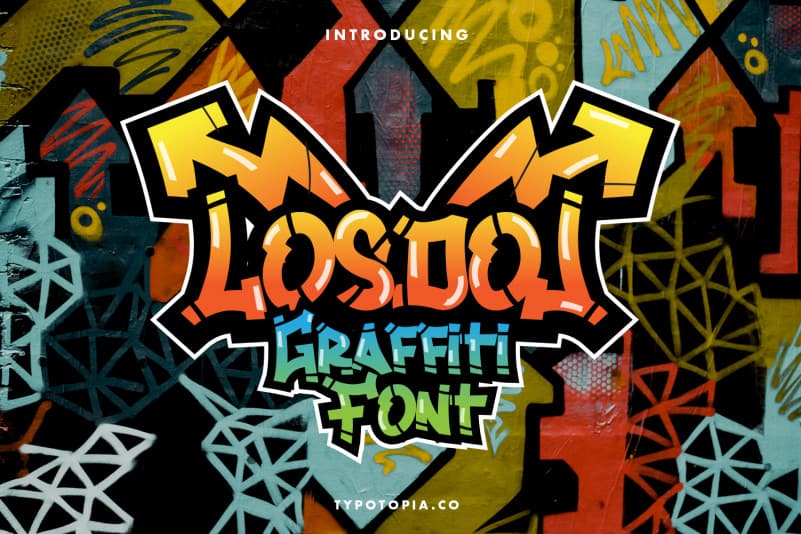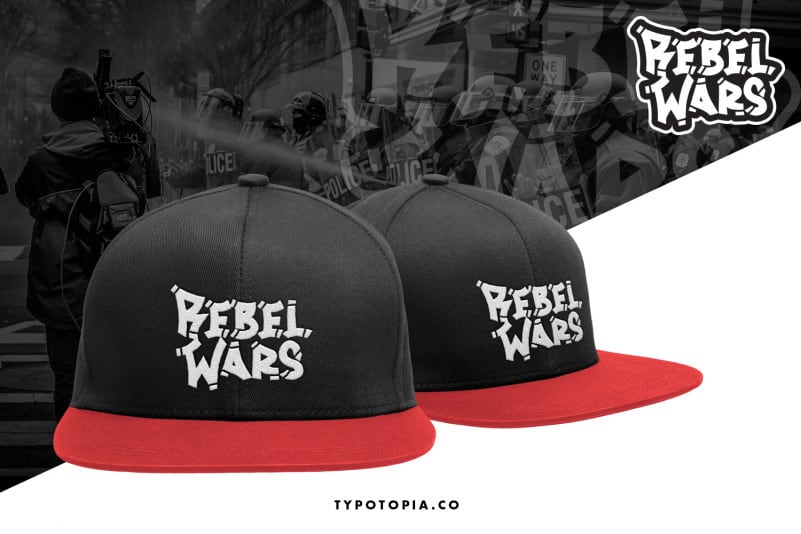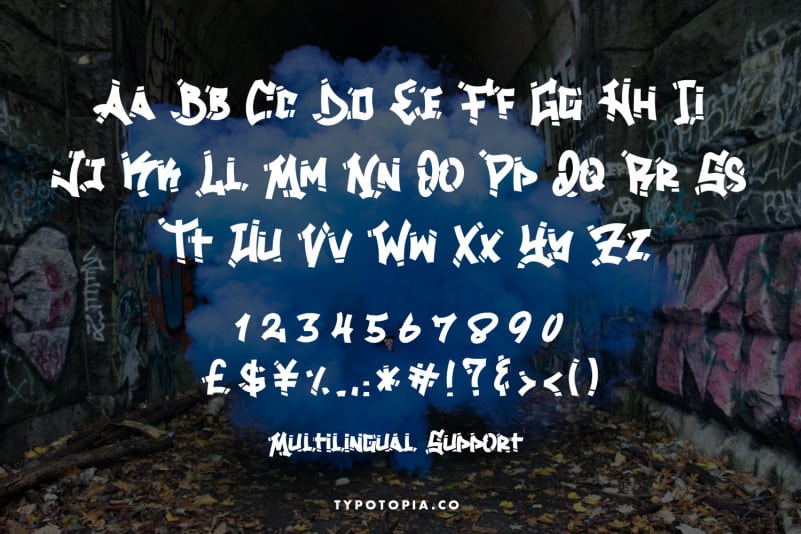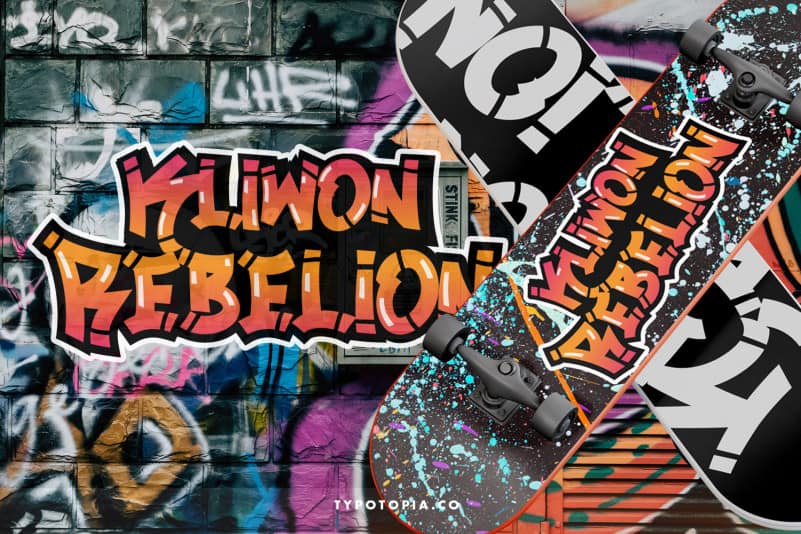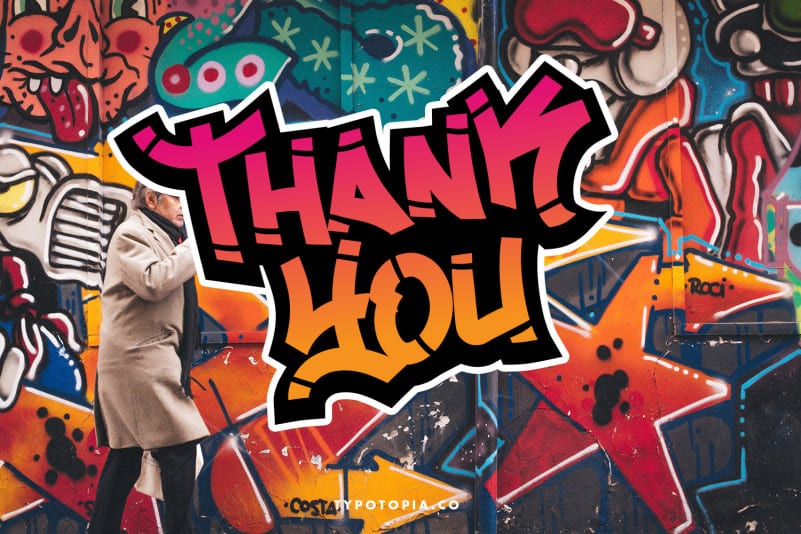
Losdol Display Font
Losdol Display Font is a display Fonts with Graffiti Style. This type of font perfectly made to be applied especially for logos, Poster, stationery, magazines, menus, books, invitations, greeting cards, packaging, labels, apparel, marketing, business cards, etc.